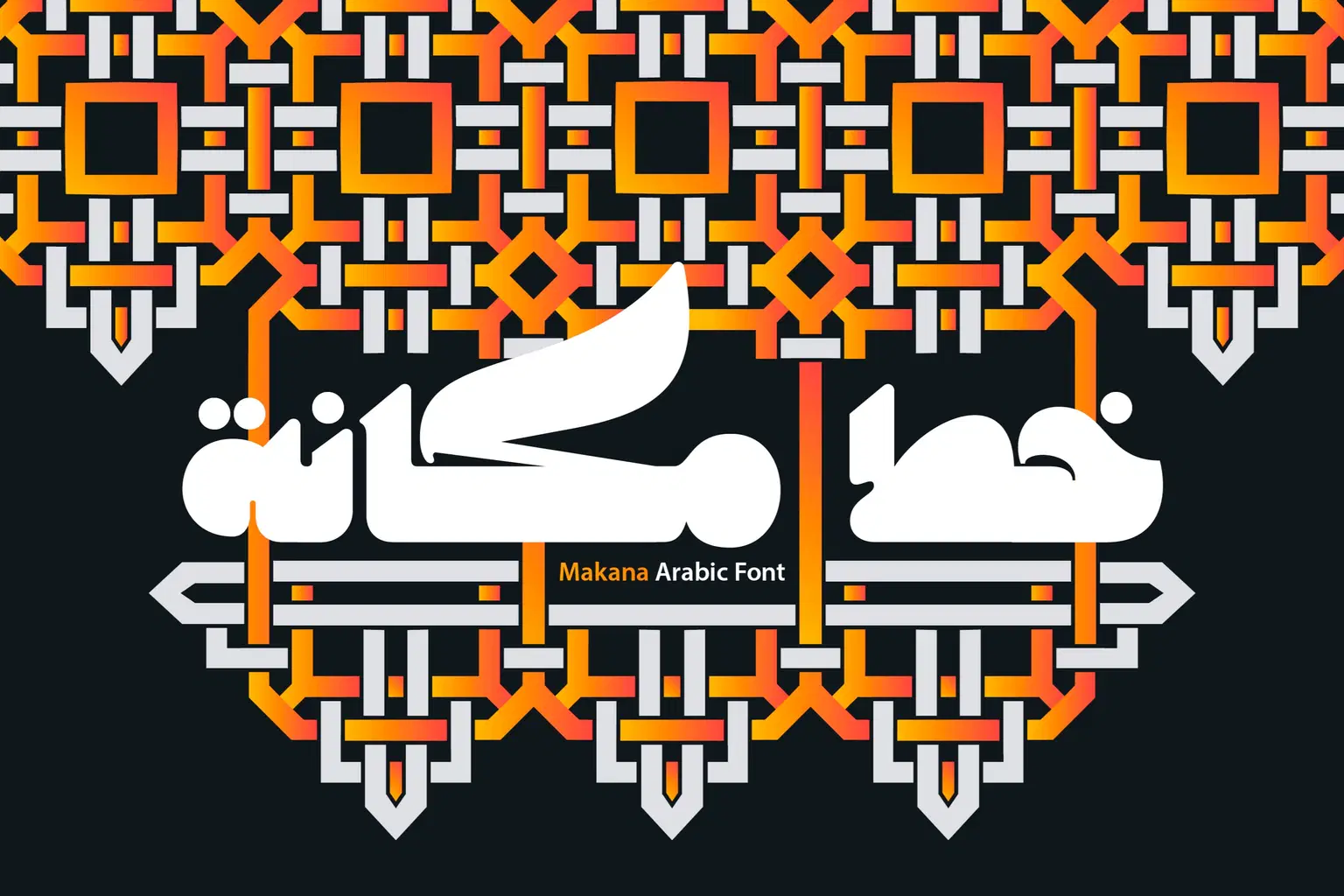
“Makana (Arabic for ‘Prestige’) is a display font with a contemporary design. It features an extra‑heavy letterform structure that captures attention while adding a distinctive tone of voice to text. The font also includes a stylistic set of glyphs with a subtle calligraphic touch. Makana is well‑suited for creative projects across web, print, and mobile applications.